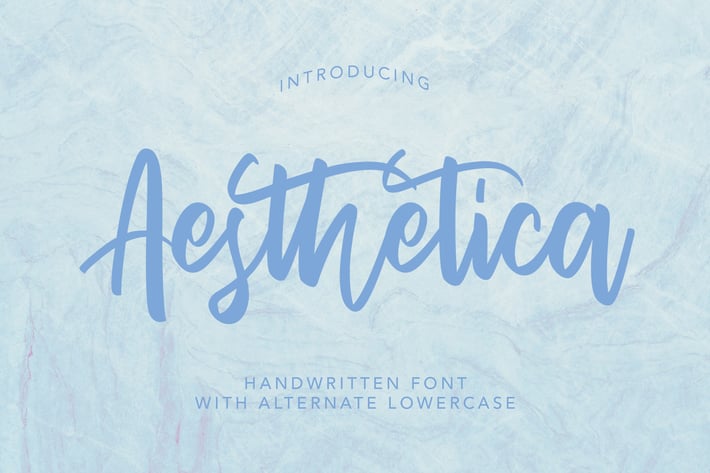
AesThetica - Handwritten Font
AesThetica - Handwritten Font contains a lowercase, uppercase, symbol, and also supports multi-language. There’s a lot of ligature in this font. AesThetica - Handwritten Font also comes with ligatures, stylistic alternates and many more.
this font suitable for fashion, branding, catalog and other design that you want.